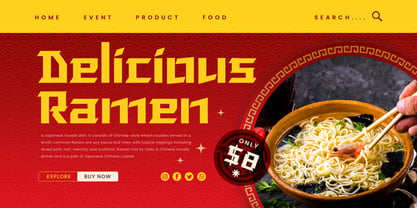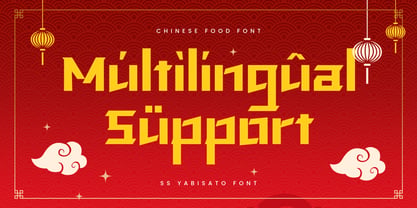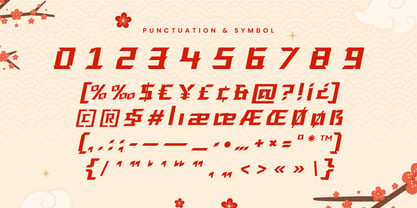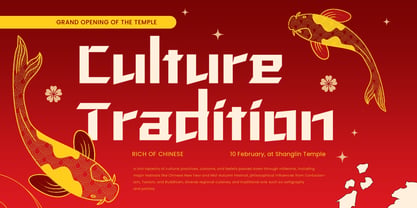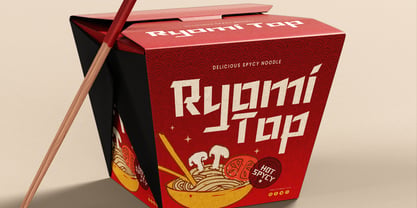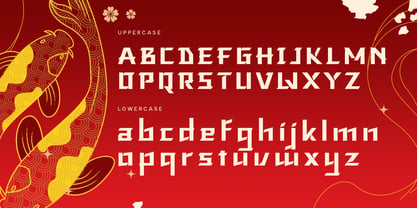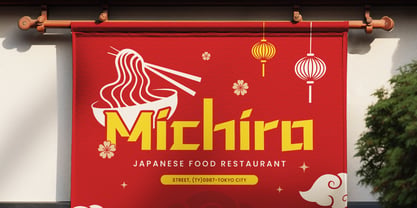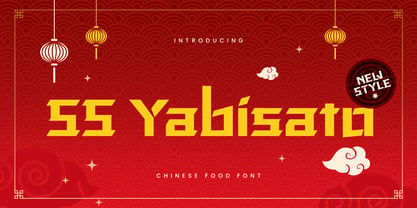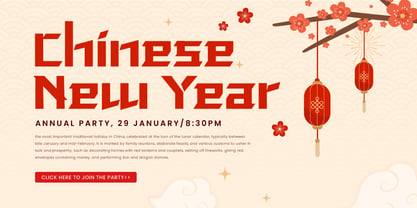
SS Yabisato
Introducing SS Yabisato, a font inspired by the rich culture and festive spirit of Chinese New Year. Perfect for projects that celebrate Chinese heritage and cuisine, SS Yabisato combines traditional elements with modern elegance to bring your designs to life.
The Story Behind SS Yabisato:
SS Yabisato was created to capture the essence of Chinese festivals and culinary delights. Imagine the vibrant streets filled with lanterns, the aroma of delicious food, and the joyous celebrations of Chinese New Year. This font embodies that festive atmosphere, offering a unique blend of tradition and modernity. SS Yabisato is ideal for designers who want to infuse their work with the beauty and elegance of Chinese culture.
SS Yabisato Font Features:
• Cultural Design: Inspired by traditional Chinese calligraphy and festive motifs.
• Elegant Aesthetic: Combines classic elements with modern elegance for a stylish look.
• Versatile Usage: Ideal for menus, invitations, branding, posters, and festive designs.
• High Legibility: Clear and readable, ensuring your message is communicated effectively.
• Festive Appeal: Perfect for celebrating Chinese New Year and other cultural events.
• Inspirational Previews: Includes sample designs to spark your creativity.
Perfect For:
• Festive Branding: Create elegant and memorable logos for Chinese New Year events and businesses.
• Cultural Celebrations: Design eye-catching posters, flyers, and promotional materials for festive occasions.
• Restaurant Menus: Develop stylish and traditional menus for Chinese restaurants and food events.
• Invitations and Cards: Enhance invitations, greeting cards, and decor with a touch of cultural elegance.
With SS Yabisato, your designs will celebrate the beauty and richness of Chinese culture. Whether you're working on festive branding, cultural celebrations, or restaurant menus, SS Yabisato provides the perfect blend of tradition and modern elegance. Elevate your design projects with SS Yabisato and bring the spirit of Chinese New Year to your work.